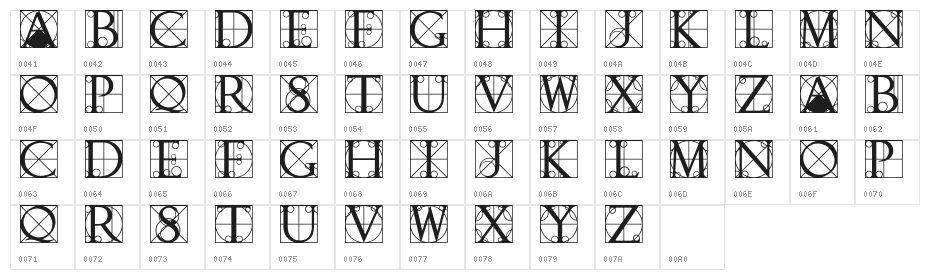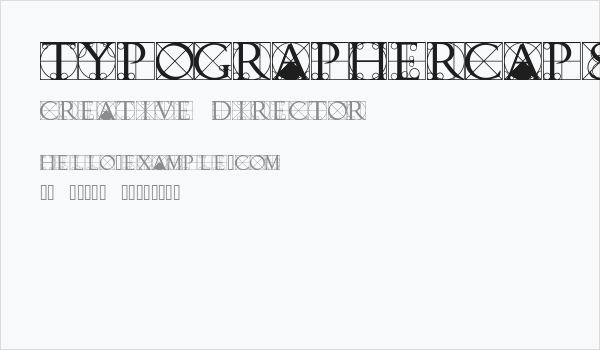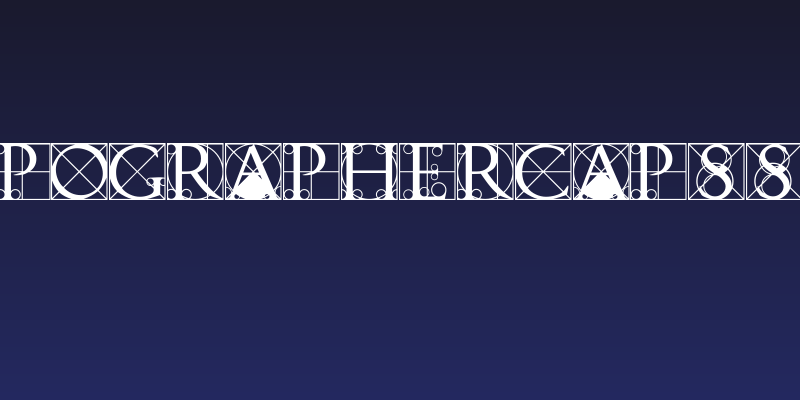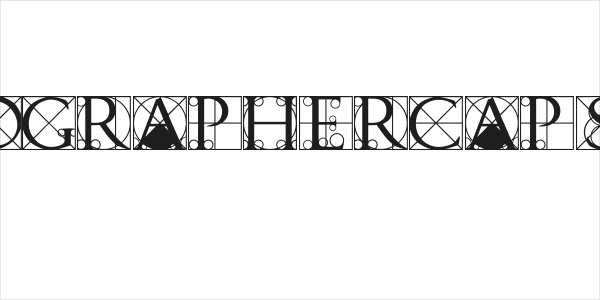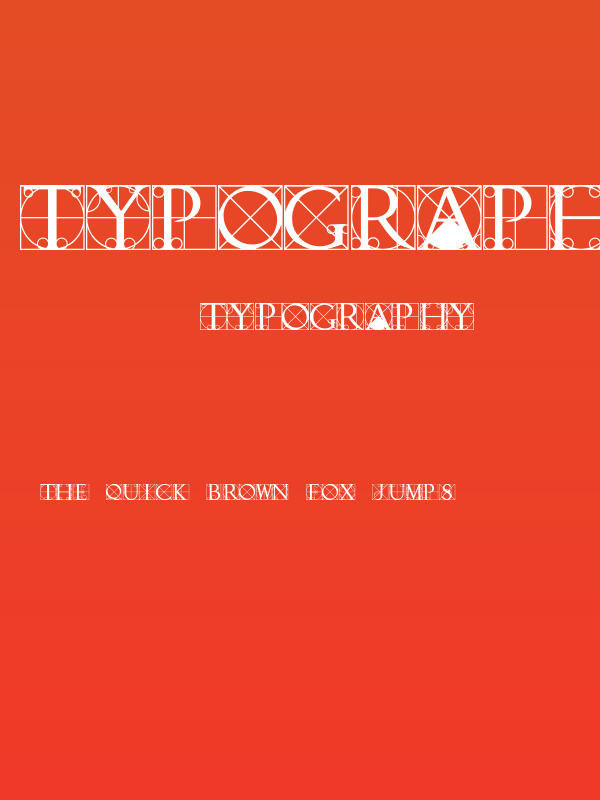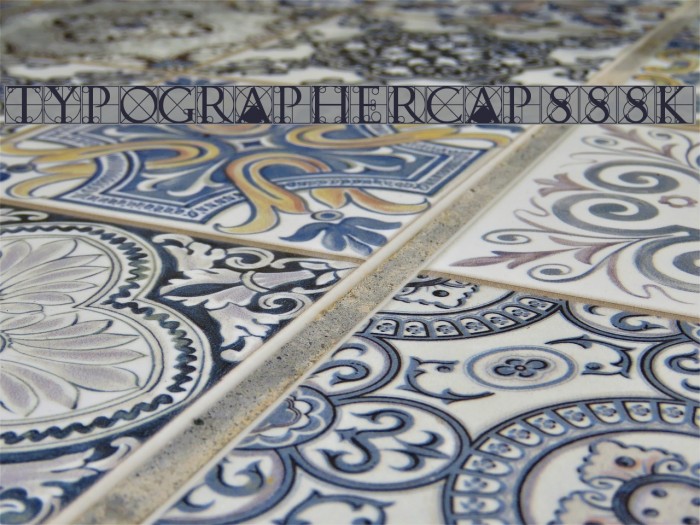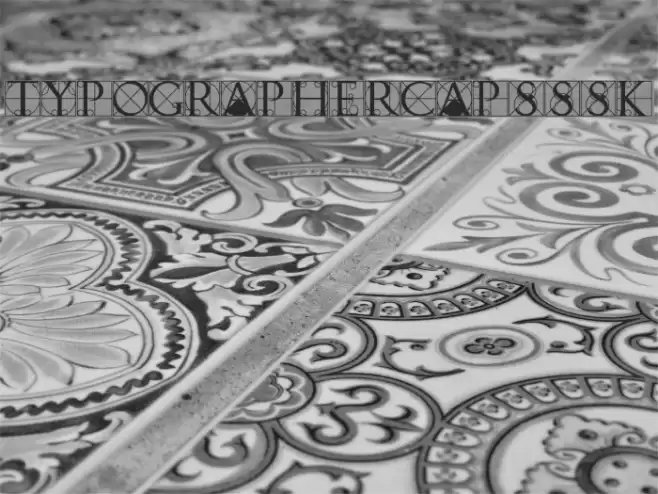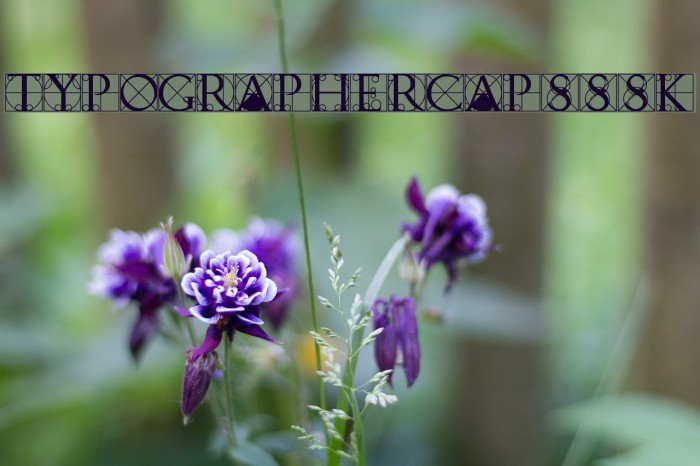
TypographerCapsSSK Font
TypographerCapsSSK Description
This font features an intricate and decorative design, characterized by its use of geometric shapes and ornate patterns within each letterform. The uppercase letters are embellished with circles and lines that intersect and overlap, creating a complex visual texture. The font's style is reminiscent of art deco influences, with a modern twist that adds a unique flair. The absence of lowercase letters and numbers suggests a focus on decorative display rather than practical text usage. The overall appearance is bold and eye-catching, making it suitable for projects that require a strong visual impact.
| Use Case | Logos, Headlines, Posters |
| Proposed Projects | Ideal for use in branding, posters, and artistic projects where a striking and decorative typeface is desired. |